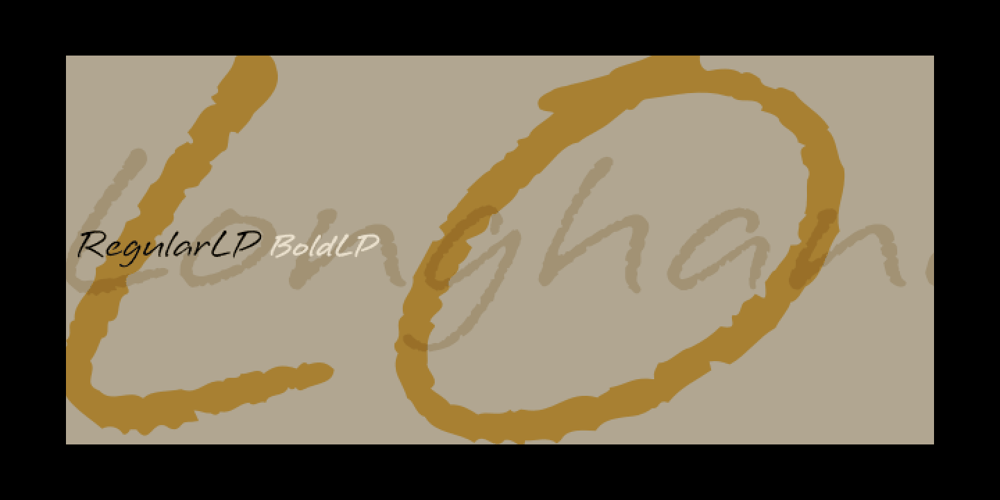
Longhand LP
Longhand LP font
Longhand LP Font Family was designed by Garrett Boge and published by LetterPerfect. Longhand LP contains 2 styles and family package options. Longhand is a script design modeled on casual handwriting. Its subtle rough edge and line variation simulate cursive writing on text paper. The font, optimized for legibility, works equally well at small sizes for correspondence, and at large display sizes for headlines and titles. A companion Bold version can be used for added emphasis and as a style on its own.